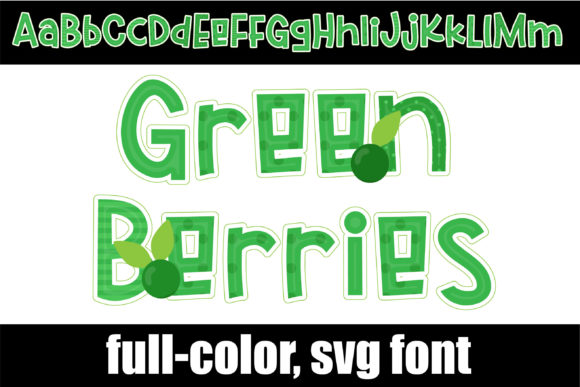
Discover the Magical World of Green Berries Font: A Colorful Feast for Your Creative Vision
Dive into the enchanting realm of Green Berries Font, a captivating collection of green-colored, patterned lettering that will set your creativity ablaze. Experience the joy of adorning your designs with lush green hues, playful patterns, and the delightful berry accents that add a touch of whimsy to your creations.
Indulge in the vibrant energy of Green Berries Font, a chromatic masterpiece that brings life to your digital canvas. This full-color font breathes new life into your projects, whether you're crafting eye-catching logos, enchanting invitations, whimsical social media posts, or any other design that calls for a pop of color and cheer.
Green Berries Font is a versatile chameleon, effortlessly adapting to a myriad of design adventures. Its vibrant green palette harmonizes seamlessly with St. Patrick's Day-themed designs, adding a touch of Irish charm to your creations. From cheerful posters to festive greeting cards, let Green Berries Font infuse your designs with a touch of luck and merriment.
Unleash your creativity and embrace the boundless possibilities of Green Berries Font. Let its green hues dance across your designs, captivating your audience with its charm and uniqueness. Whether you're a seasoned design aficionado or just starting your creative journey, Green Berries Font is your gateway to a world of captivating creations.